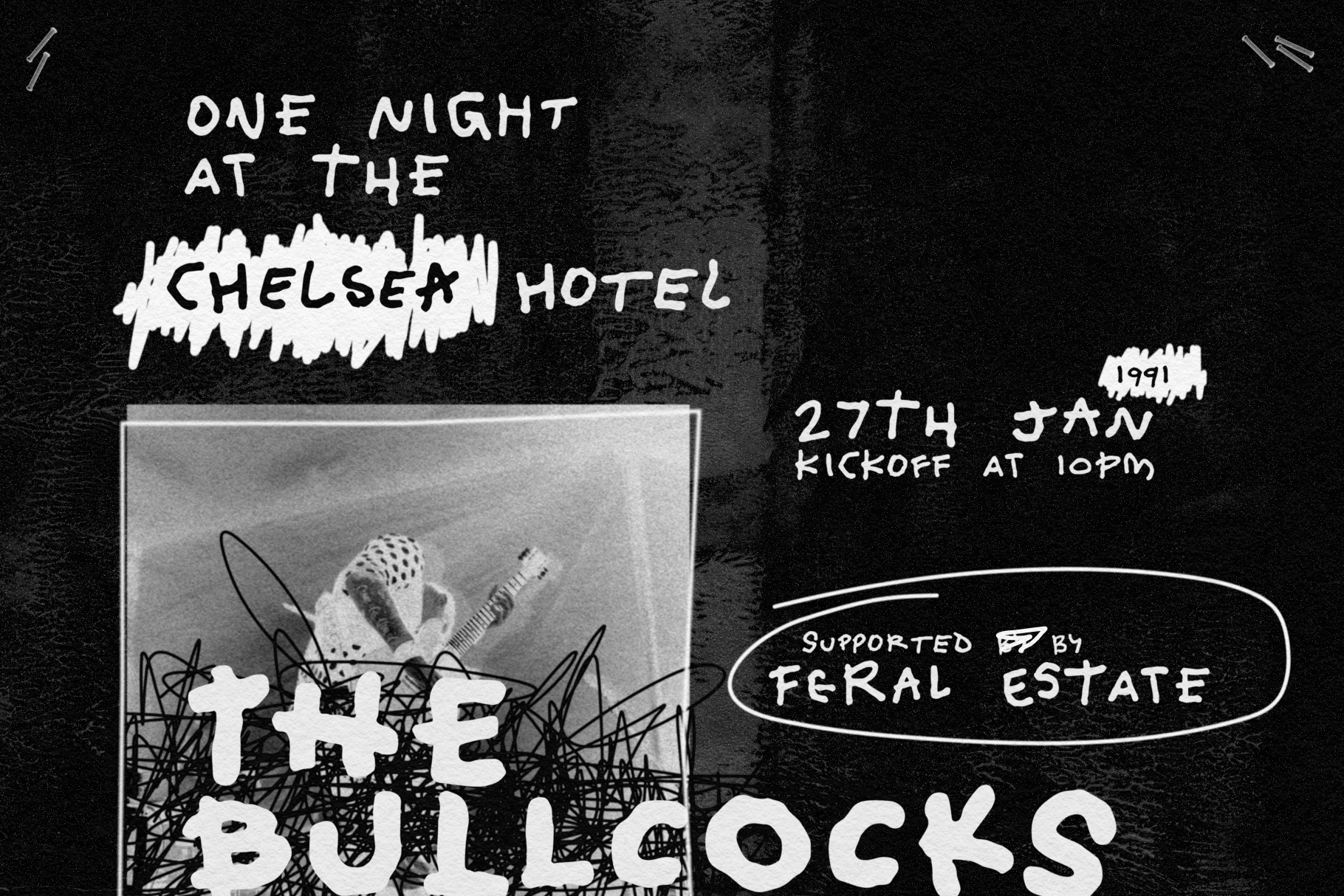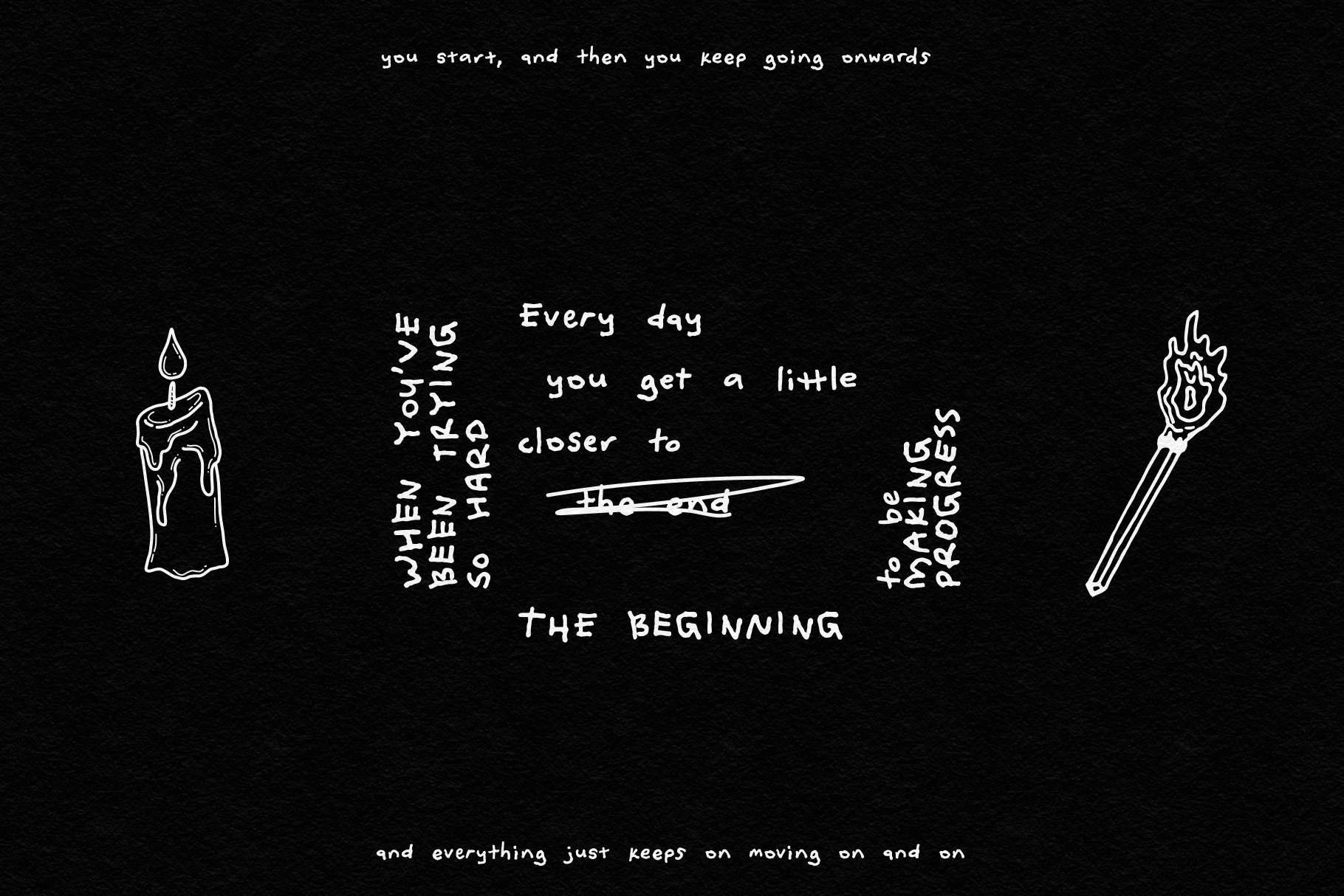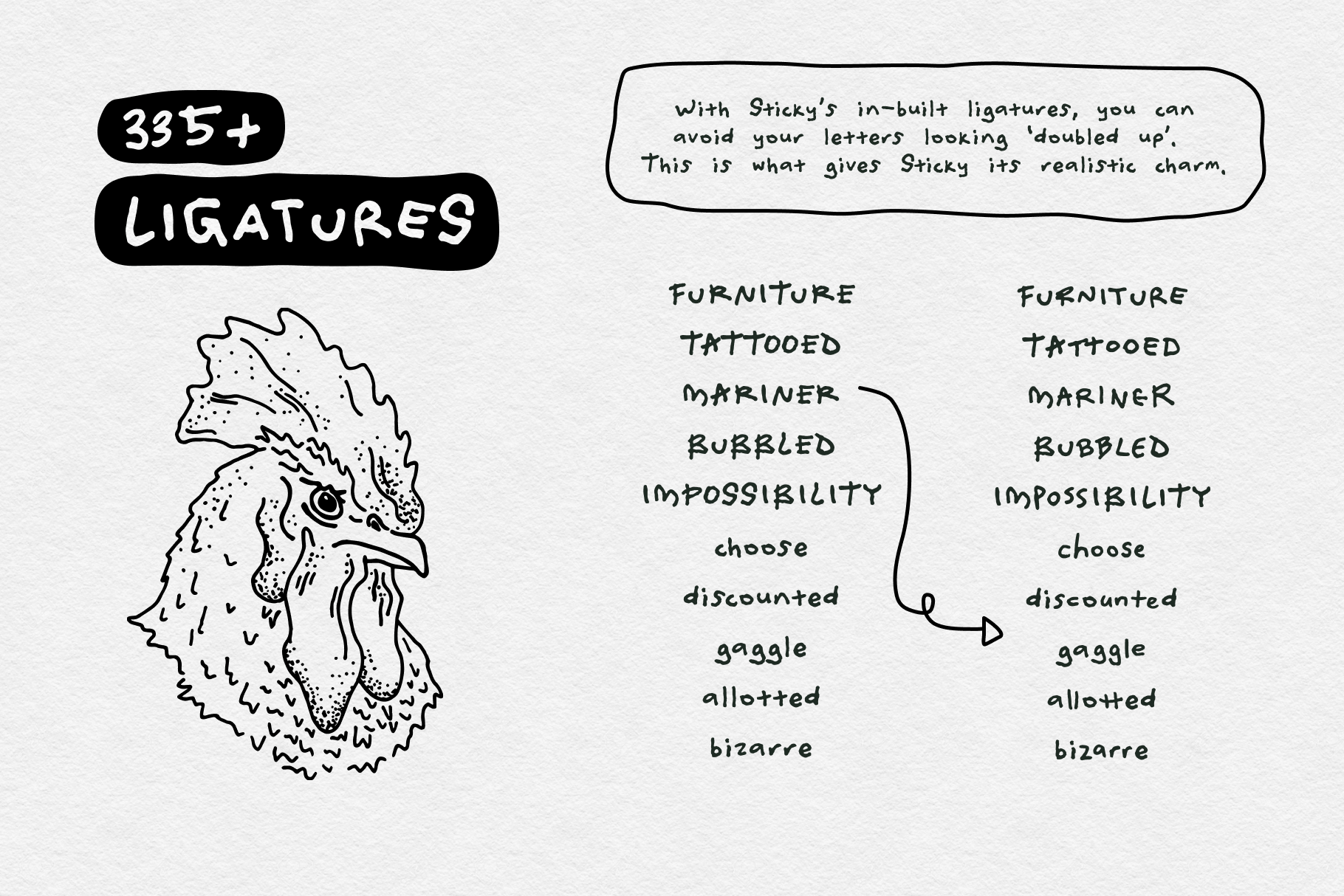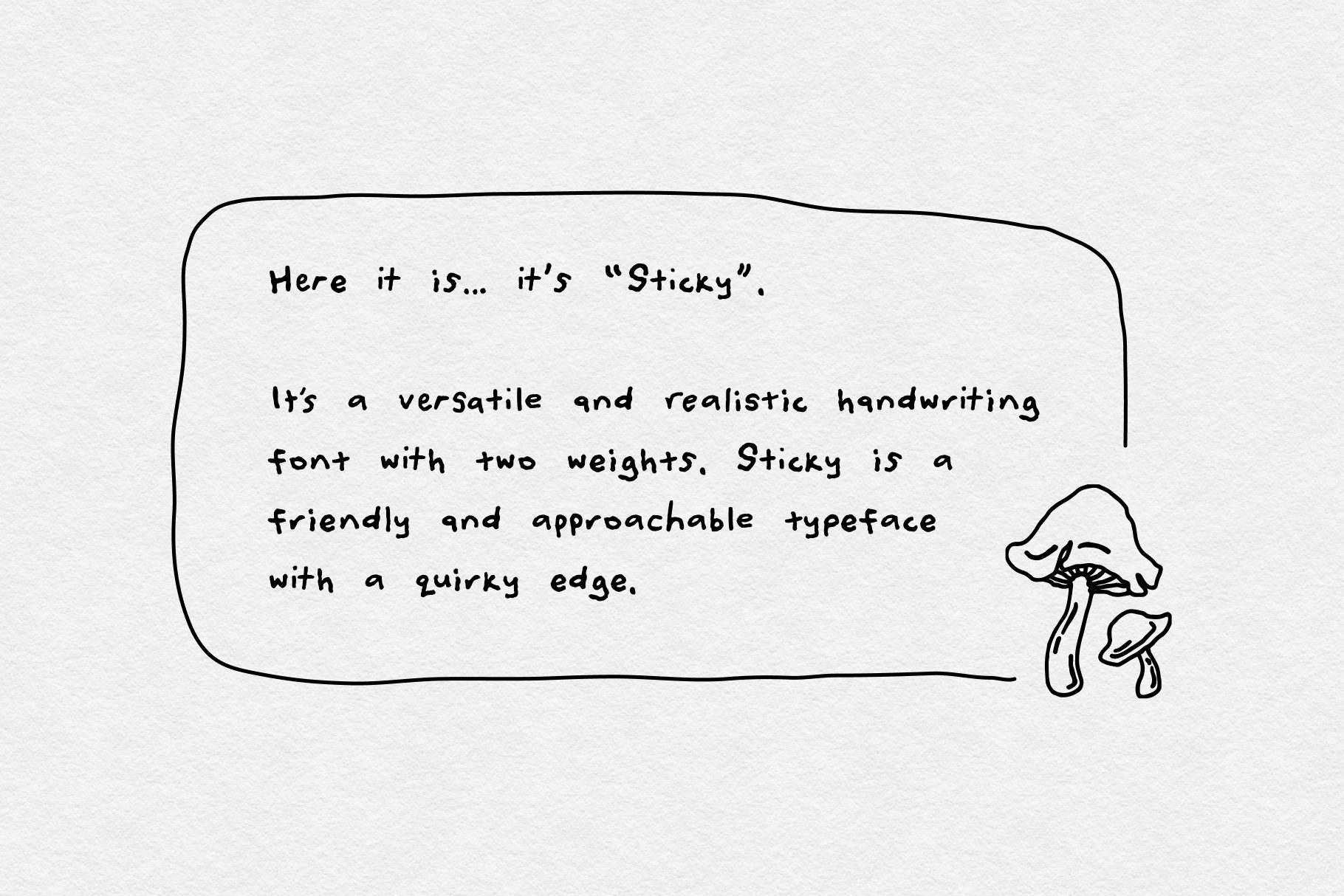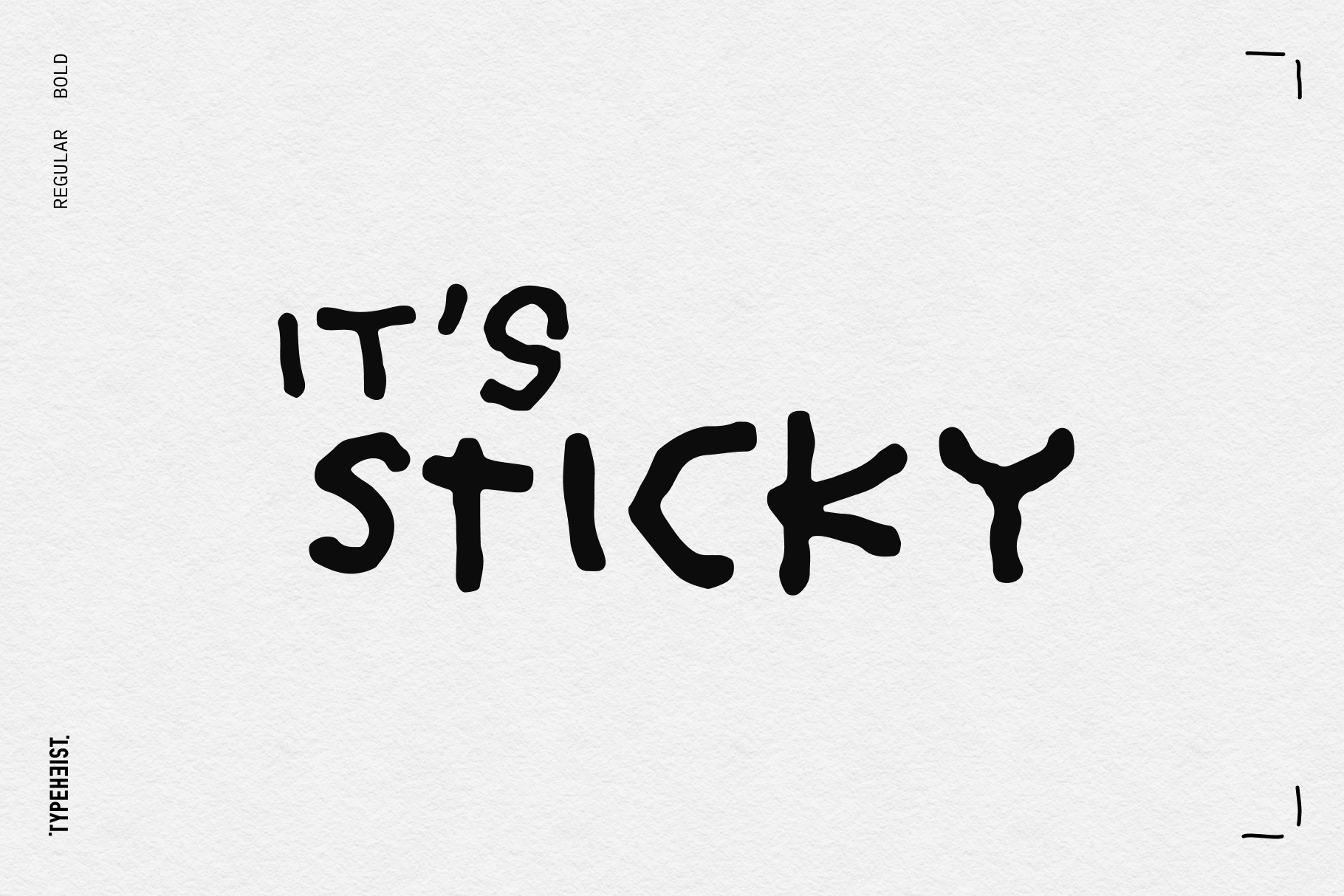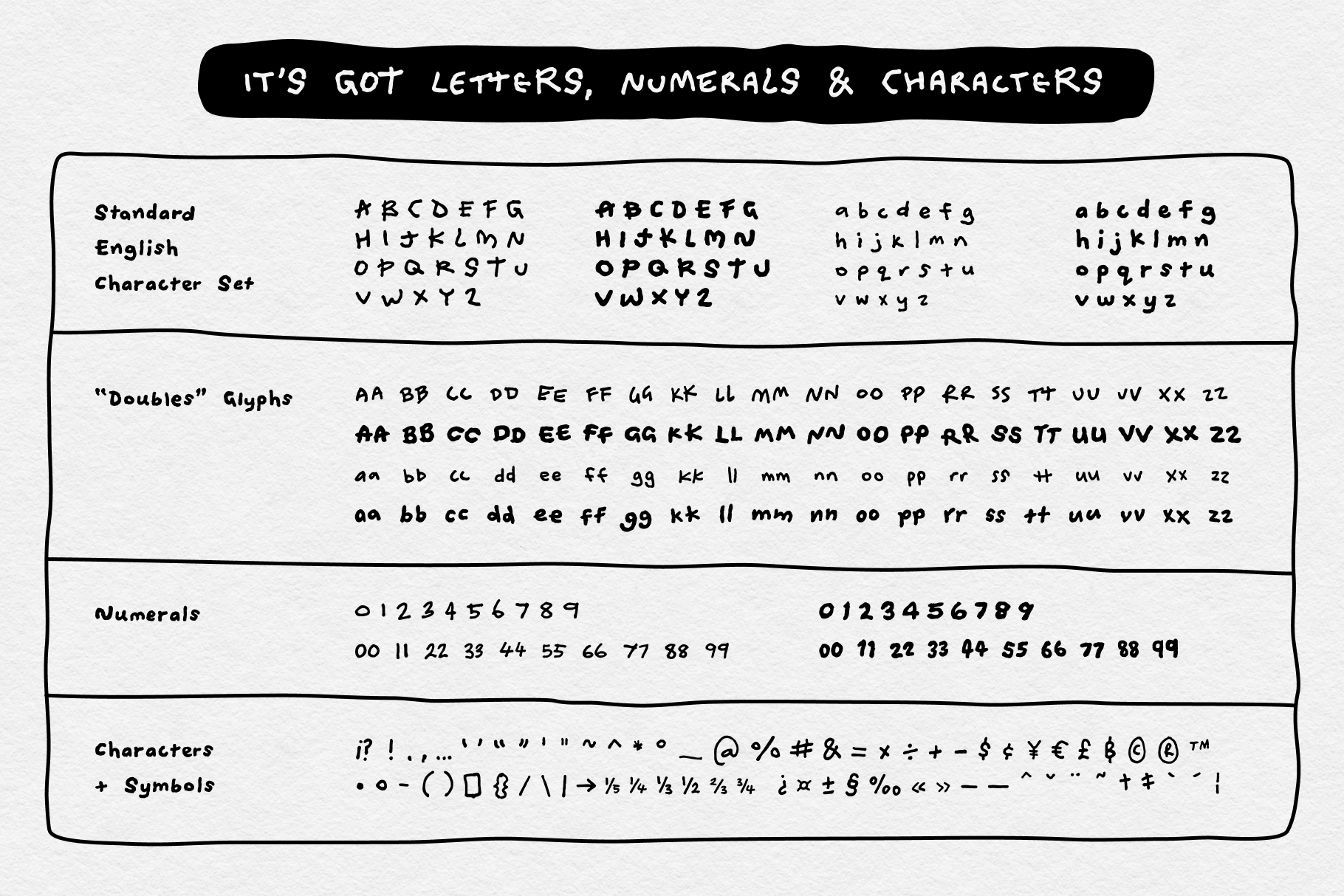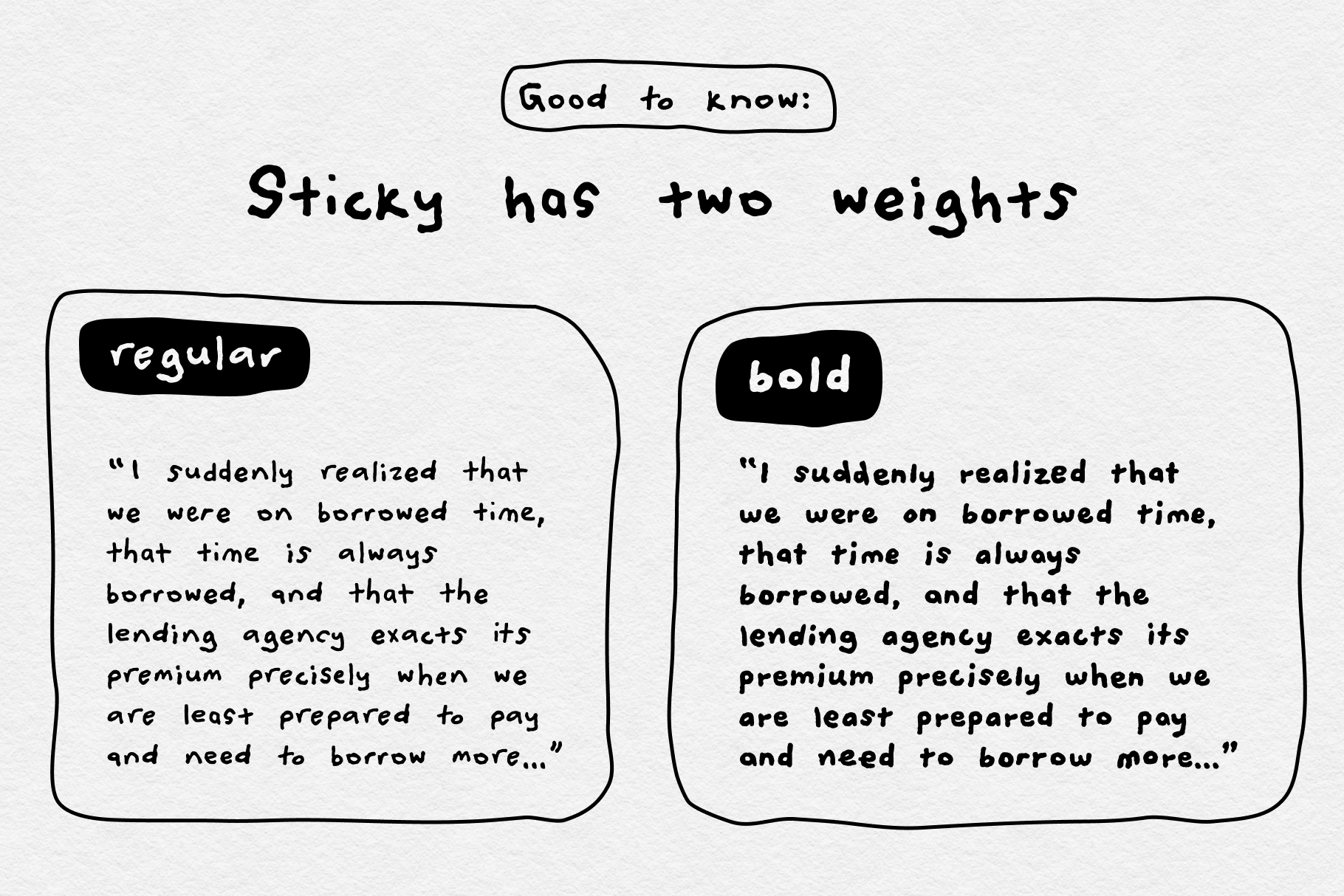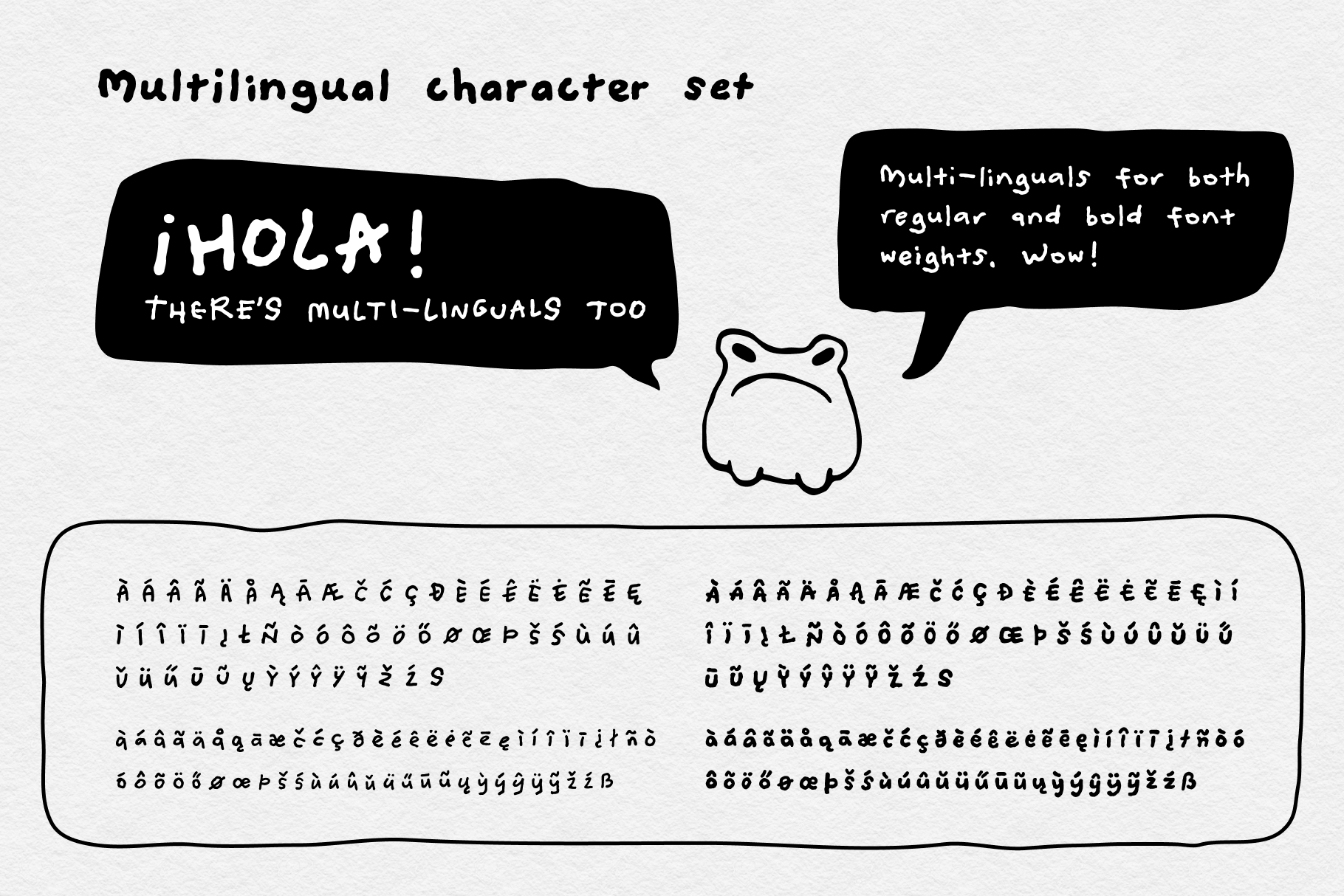
"Meet Sticky. A realistic and slightly offbeat handwriting font that comes in two weights: regular and bold.
Sticky is warm and approachable with a playful edge that keeps things interesting. Designed to look like genuine handwriting, it’s packed with glyphs, ligatures and alternates to give your text natural flow and plenty of variation. Every letter feels a little different, adding a sense of personality and charm.
It’s a little messy, a little weird and a lot of fun. Perfect for projects that call for a friendly and slightly unusual touch."
Sticky is a realistic handwriting font that comfortably balances the fine line between uniqueness and legibility. At large sizes it’s eye-catching and distinctive. For smaller copy, it’s fun and playful while still being easy to read.
It’s multi-lingual and includes over 460 characters in each weight, supporting languages such as French, Spanish, German, Hungarian and many more. Give it a go in the type tester.